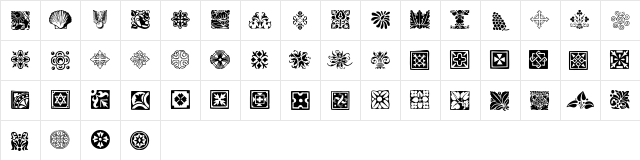
PrintersOrnamentsTwo Regular
Design Context for PrintersOrnamentsTwo Typeface
PrintersOrnamentsTwo is built around its visual character rather than neutral utility — its distinctive forms are designed to make an impression at display sizes.
Font Pairing: Pair with a clean neutral sans-serif for body copy to let PrintersOrnamentsTwo's character lead without overwhelming the composition.
Pro Tip: Use PrintersOrnamentsTwo exclusively at display sizes — it was designed to be seen, not read at length. Let a neutral companion handle body copy.